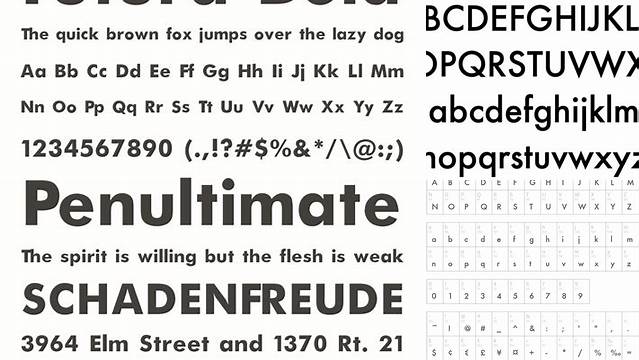
Hey guys, ever stumbled upon a font that just screams modern, clean, and oh-so-stylish? That's Futura ND Regular for you! It's a true classic, a geometric sans-serif that’s been a go-to for designers for ages. Whether you're working on a website, a brand identity, or just need to make a flyer pop, this font has got your back. And the best part? You can often find ways to download Futura ND Regular for free, legally, if you know where to look. Let's dive deep into what makes this typeface so special and how you can get your hands on it.
Why Futura ND Regular is a Designer's Dream
So, what's the big deal about Futura ND Regular, you ask? Well, it all comes down to its design. Futura ND Regular is a masterpiece of geometric construction. Think perfect circles, straight lines, and a general sense of order and balance. It was originally designed by Paul Renner back in 1927, and let me tell ya, it was way ahead of its time! The "ND" in Futura ND usually stands for "New Day" or "Neue Design," signifying a revival or update to the original Futura. This particular version often boasts some subtle refinements for better digital rendering and broader language support, making it even more versatile for today's global design landscape. Its inherent legibility, even at smaller sizes, makes it perfect for everything from tiny website navigation to large, impactful headlines. The clean, crisp lines ensure that text remains sharp and readable across various mediums, whether it's printed on paper or displayed on a high-resolution screen. This font doesn't just convey information; it conveys a sense of sophistication and forward-thinking design. Its minimalist aesthetic allows other elements of your design to shine, without the font itself becoming a distraction. It's the kind of font that makes you feel like you're looking at something professionally crafted, something with a strong, intentional message. The sheer versatility of Futura ND Regular is another huge plus. Need something for a tech startup logo? Check. How about a minimalist wedding invitation? Absolutely. A bold statement for a fashion magazine cover? You bet. It adapts effortlessly, maintaining its elegance and clarity. This adaptability is key in a world where design needs to be consistent across so many different platforms and applications. The geometric nature also lends itself to a sense of optimism and progress, which is why it was so popular during the Bauhaus movement and remains relevant today in industries that value innovation and clarity. The understated elegance of Futura ND Regular means it won't overpower your content; instead, it enhances it, providing a solid, reliable foundation for your visual communication. It’s the silent workhorse of the typography world, always performing flawlessly without demanding undue attention. This balance between presence and subtlety is what truly sets it apart and keeps it a favorite among discerning designers.
Understanding the Geometry of Futura ND Regular
Let's get a little nerdy, guys. The beauty of Futura ND Regular lies in its geometric underpinnings. Unlike older serif fonts or even some more organic sans-serifs, Futura ND Regular is built on pure geometric shapes. Imagine drawing a perfect circle for the 'O', a straight line for the 'I', and a triangle for the 'A'. That's the essence of its design philosophy. This strict adherence to geometric forms gives the font its distinct, modern, and almost futuristic feel, even though it's nearly a century old! The capital letters, in particular, are striking in their simplicity and purity. The 'A' and 'M' have a very distinct pointed apex, and the 'O' is a near-perfect circle. The lowercase letters, while slightly less rigidly geometric than the capitals, maintain a harmonious balance. The 'a' is a single-story design, and the 'g' is also typically a simple, unadorned shape. This consistent geometric language throughout the typeface creates a visually pleasing rhythm and ensures excellent legibility. The stroke widths are generally uniform, contributing to its clean and uncluttered appearance. This lack of dramatic variation in thickness is a hallmark of geometric sans-serifs and is crucial for its readability, especially in longer blocks of text or at smaller point sizes. The spacing between letters, or kerning, is also carefully considered in Futura ND Regular to create even visual density, preventing letters from feeling too crowded or too spread out. This attention to detail in its construction is what elevates Futura ND Regular from just being a font to being a design tool. It's this foundational geometric purity that allows it to adapt so well to different design contexts, from avant-garde art posters to corporate branding. It feels both timeless and contemporary simultaneously, a rare feat in the world of typography. The clarity derived from its geometric roots makes it incredibly versatile, suitable for projects that demand a sense of order, precision, and modernism. It’s a font that communicates efficiency and intelligence, making it a solid choice for technical or scientific communication as well as for high-fashion branding. The geometric construction is not just an aesthetic choice; it’s a functional one, contributing directly to the font’s outstanding readability and appeal across a wide spectrum of applications.
The History and Evolution of Futura
To truly appreciate Futura ND Regular, it helps to know its backstory. Born in the roaring twenties, Futura was designed by Paul Renner in Germany. It was part of the broader 'New Typography' movement, which aimed to create designs that were functional, clear, and modern. Renner envisioned a typeface that reflected the spirit of its age – an age of machines, speed, and progress. He drew inspiration from geometric shapes and the Bauhaus school's emphasis on form following function. The original Futura was revolutionary, breaking away from the ornate styles that preceded it. Over the decades, Futura has seen various iterations and revivals. The "ND" in Futura ND Regular often signifies an updated version, meticulously refined for contemporary use. These updates might include improved character sets for broader language support, adjustments for better on-screen rendering, or slight tweaks to proportions for enhanced legibility in digital environments. The "Neue Design" or "New Design" moniker points to this evolution, ensuring that Futura remains relevant and performs optimally in the digital age. Think of it as a classic car that's been lovingly restored and upgraded with modern technology – it retains its iconic silhouette but runs smoother and better. The enduring appeal of Futura lies in its ability to remain timeless despite its very modern origins. It has graced countless logos, advertisements, and publications, becoming synonymous with quality and sophistication. Its journey from a radical, modernist typeface to a universally recognized design staple is a testament to its fundamental strength and aesthetic brilliance. Each iteration, like the Futura ND Regular, aims to preserve the original spirit while adapting it for the demands of current design practices. This careful evolution ensures that Futura continues to be a leading choice for designers seeking a typeface that is both historically significant and practically applicable in the 21st century. The font’s adaptability across different media – from print to digital – is a key factor in its longevity. Renner’s original vision of a functional, modern typeface has certainly stood the test of time, proving that good design truly is eternal. Its influence can be seen in countless other typefaces, but nothing quite captures the original essence like Futura itself.